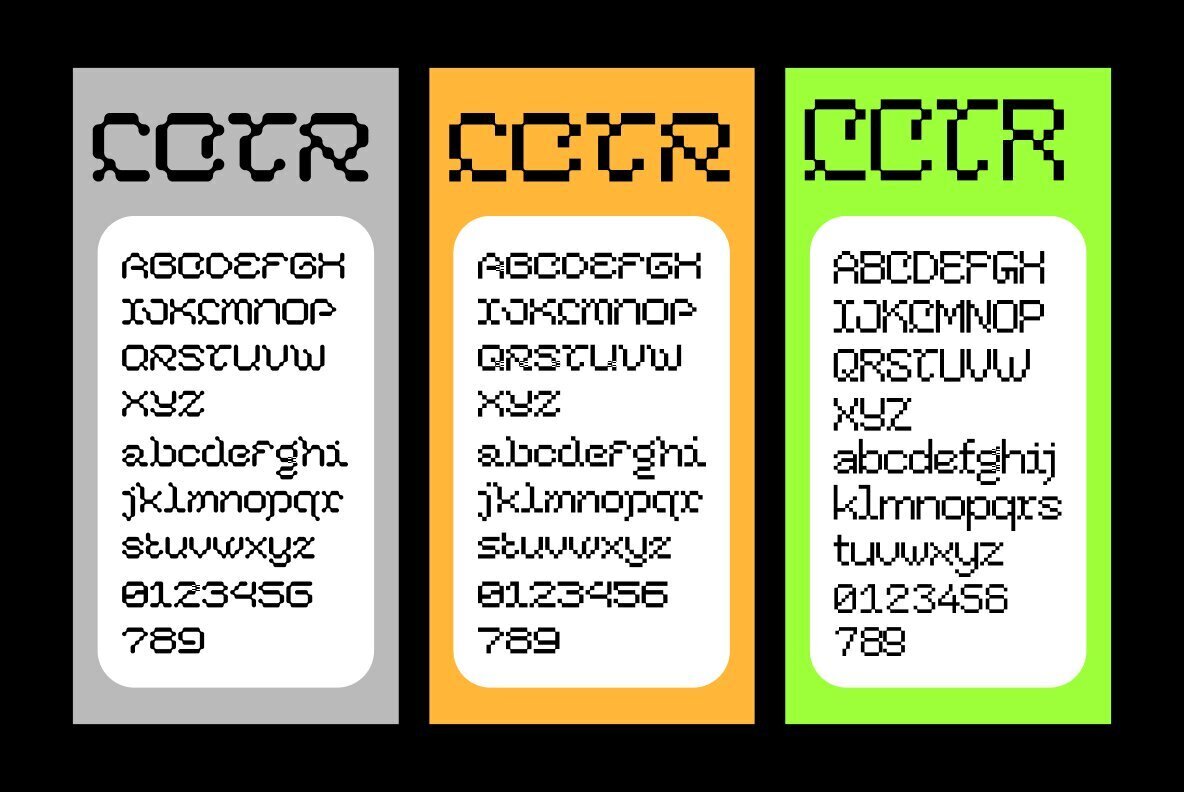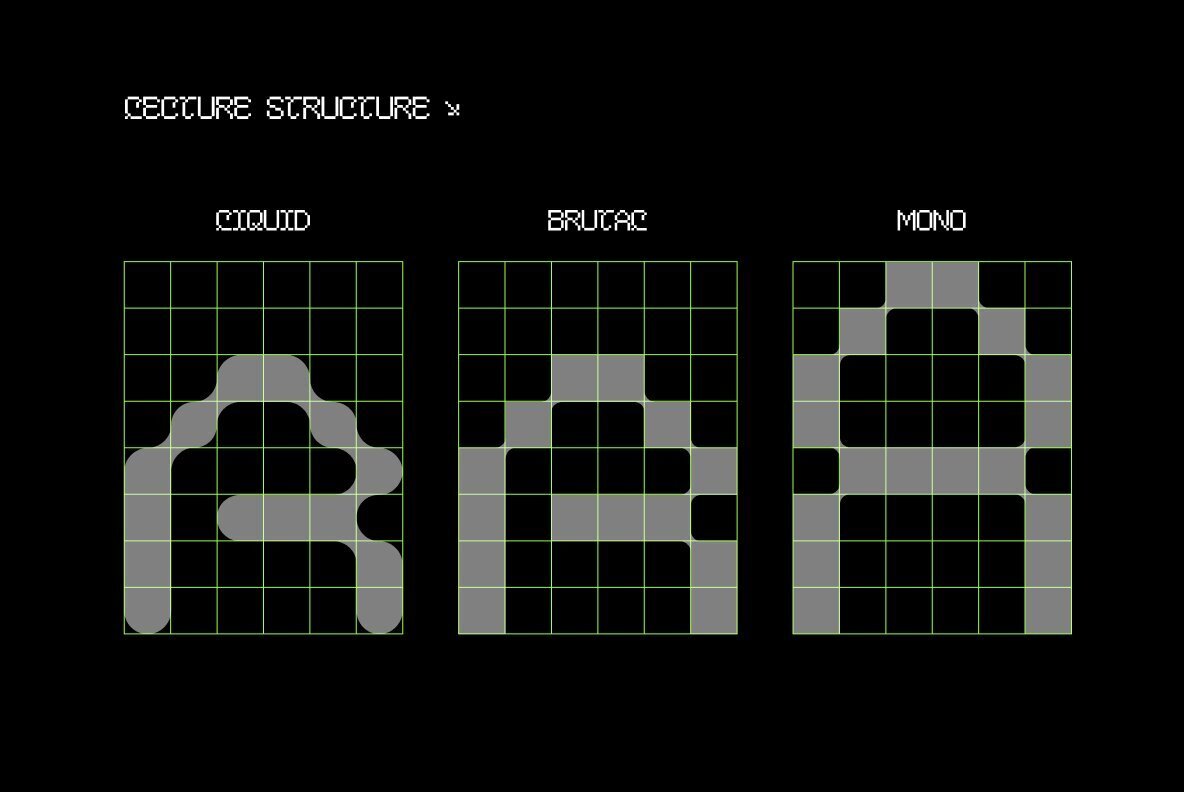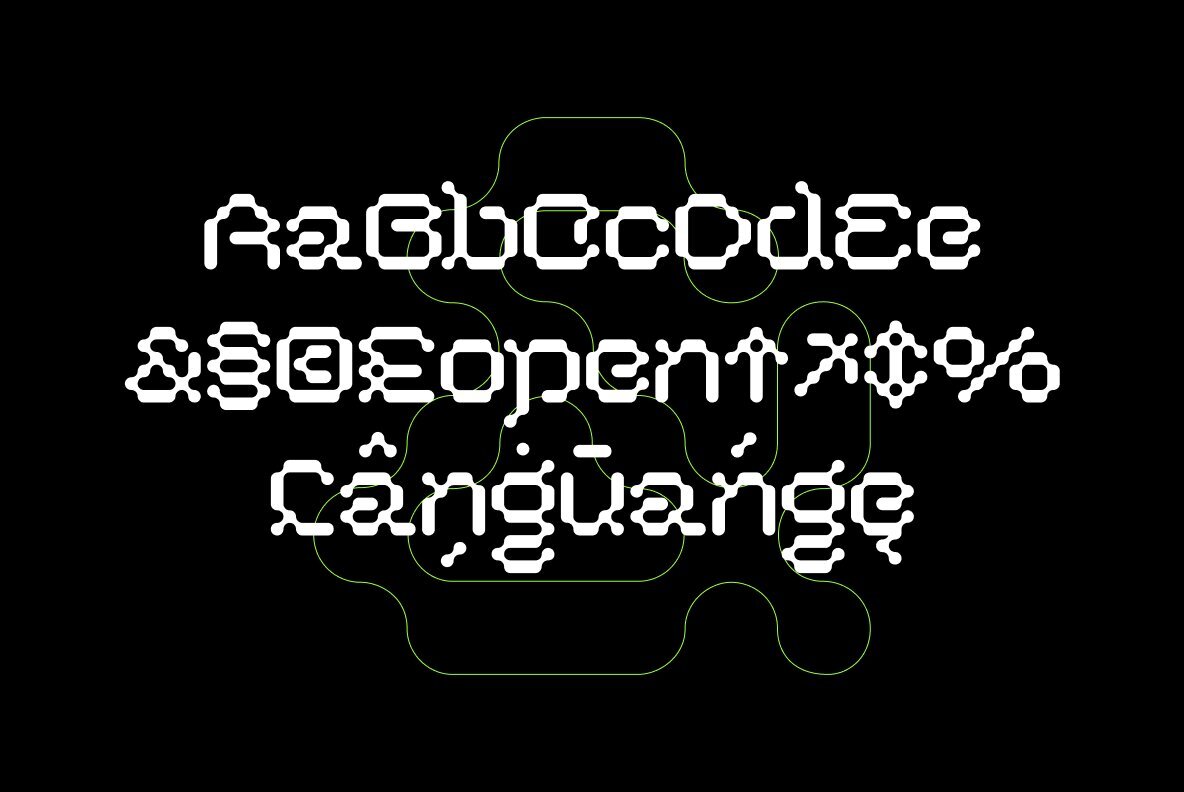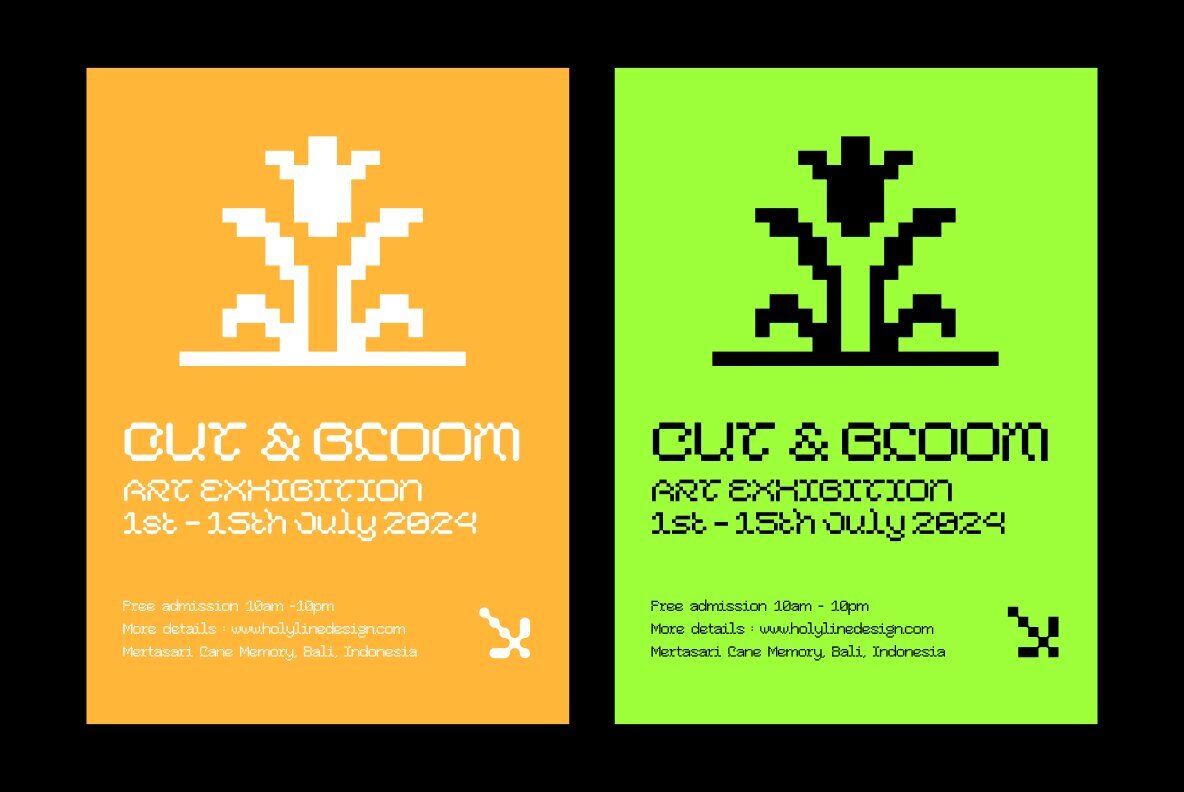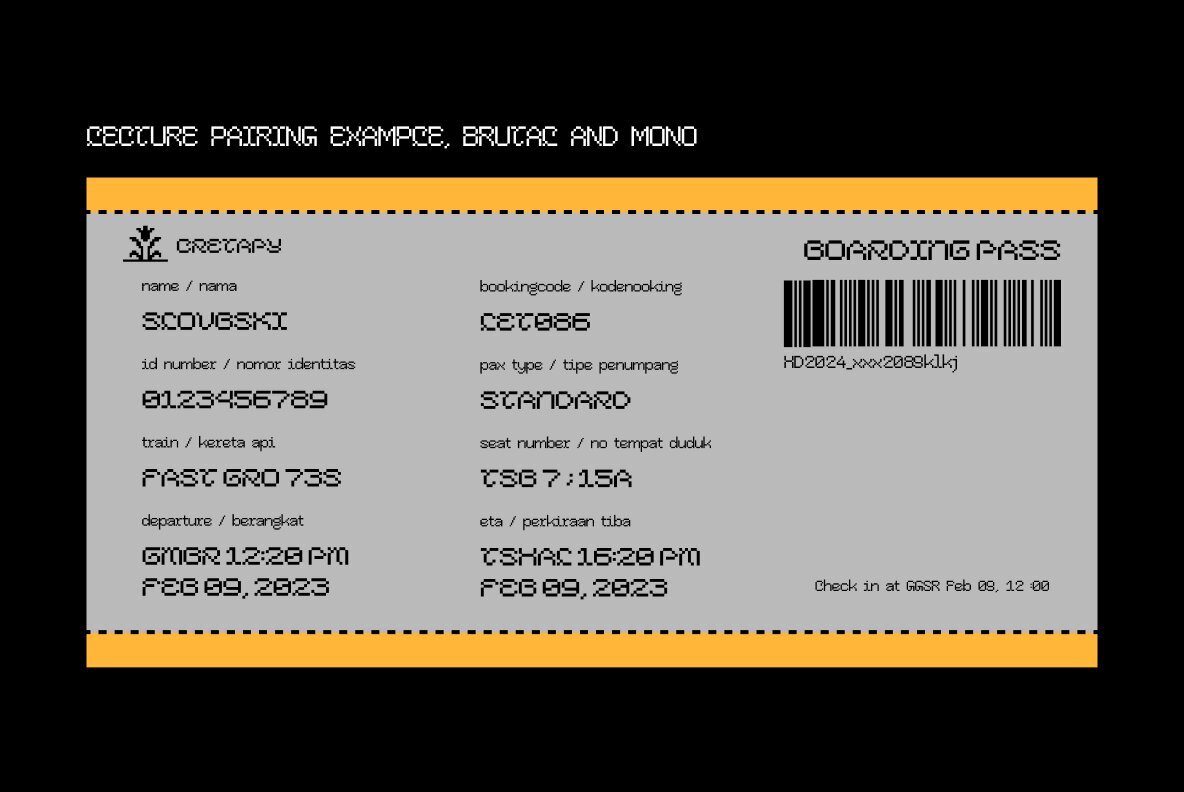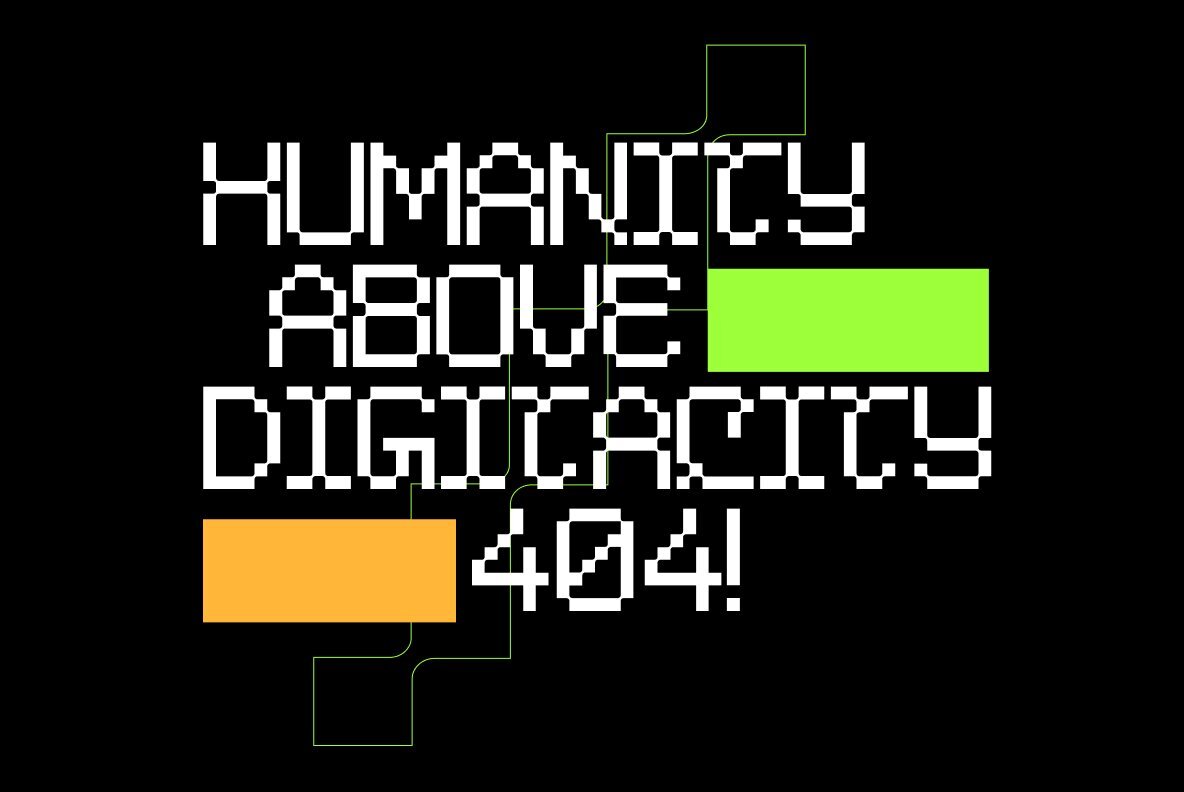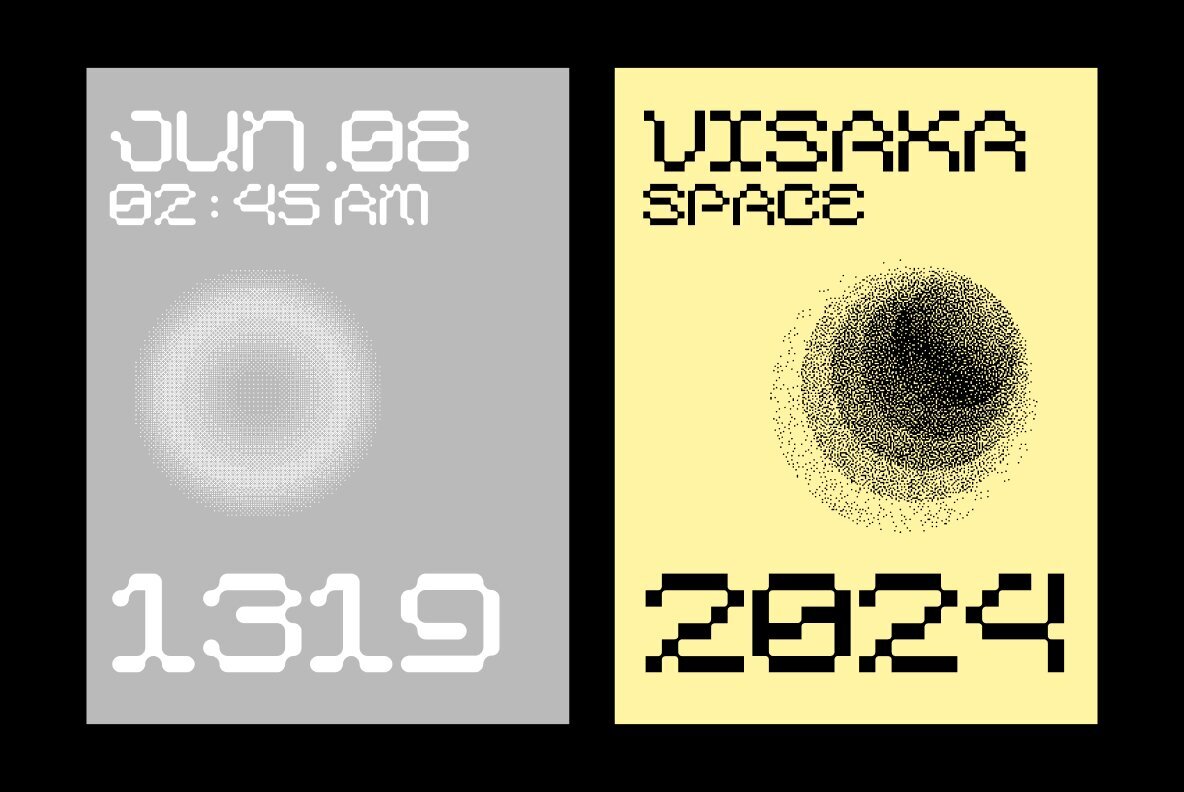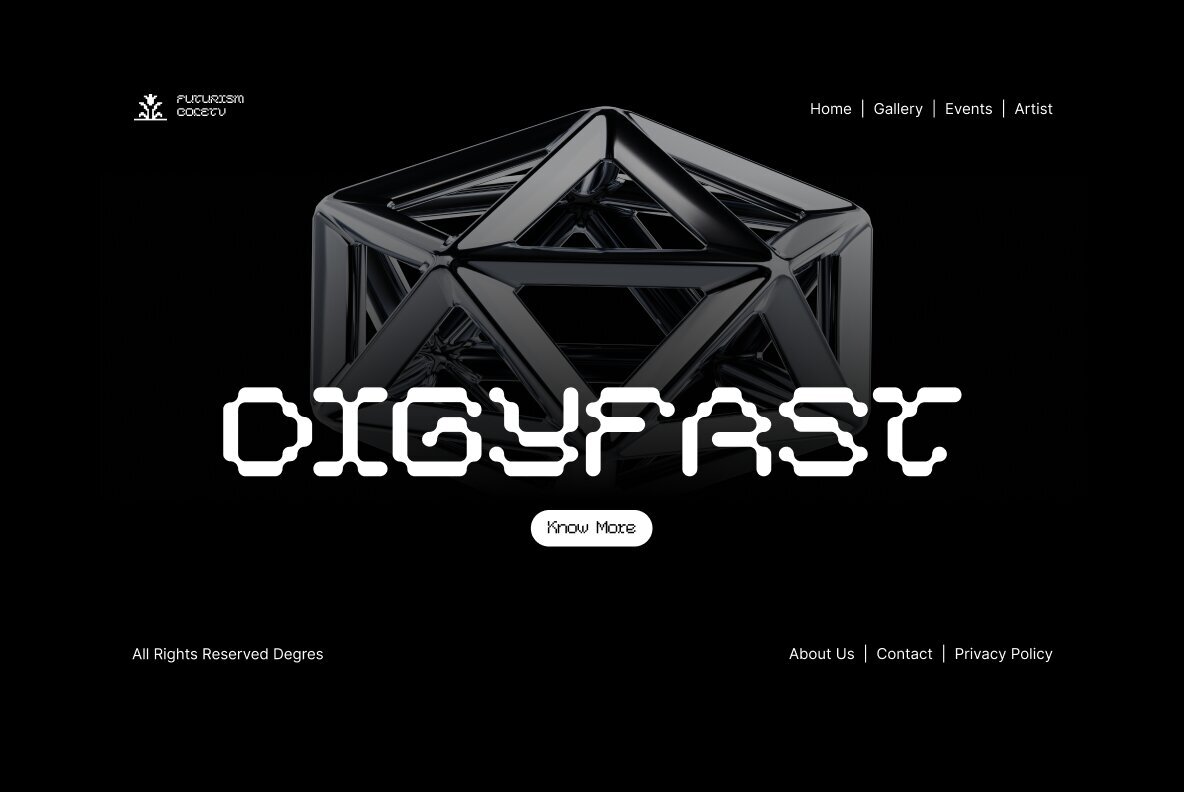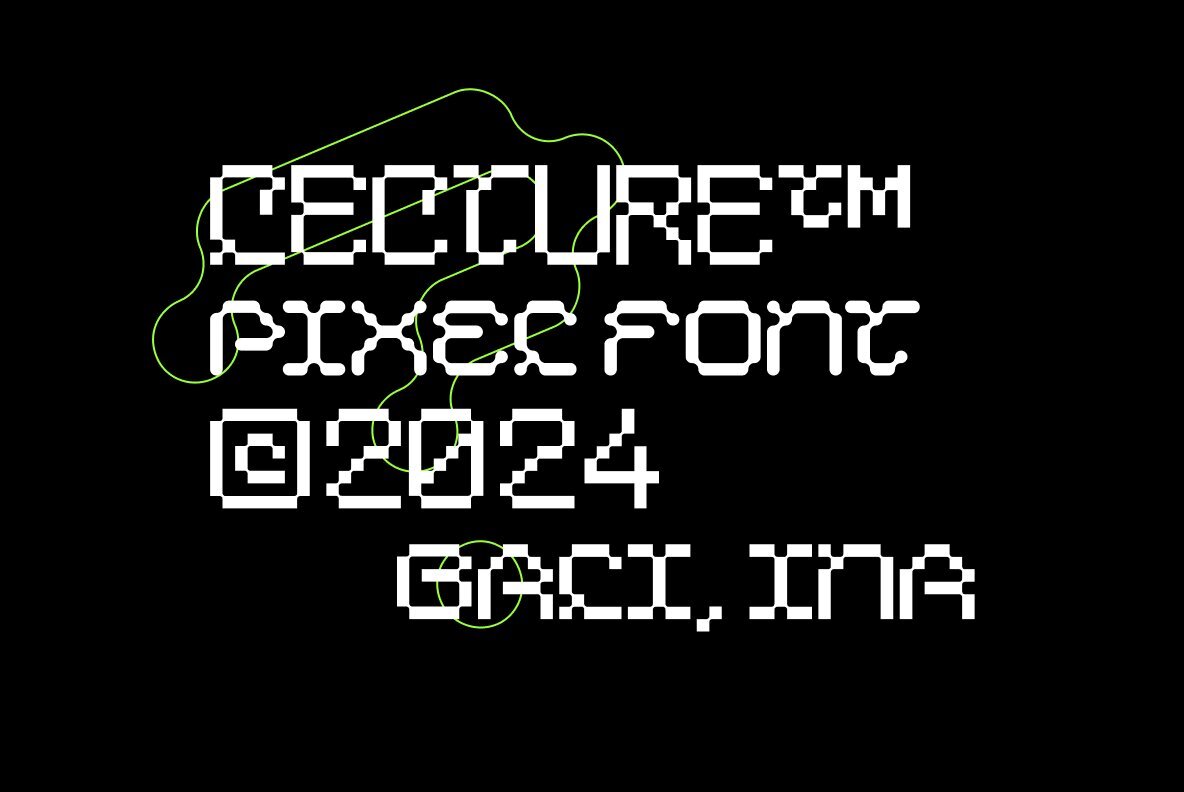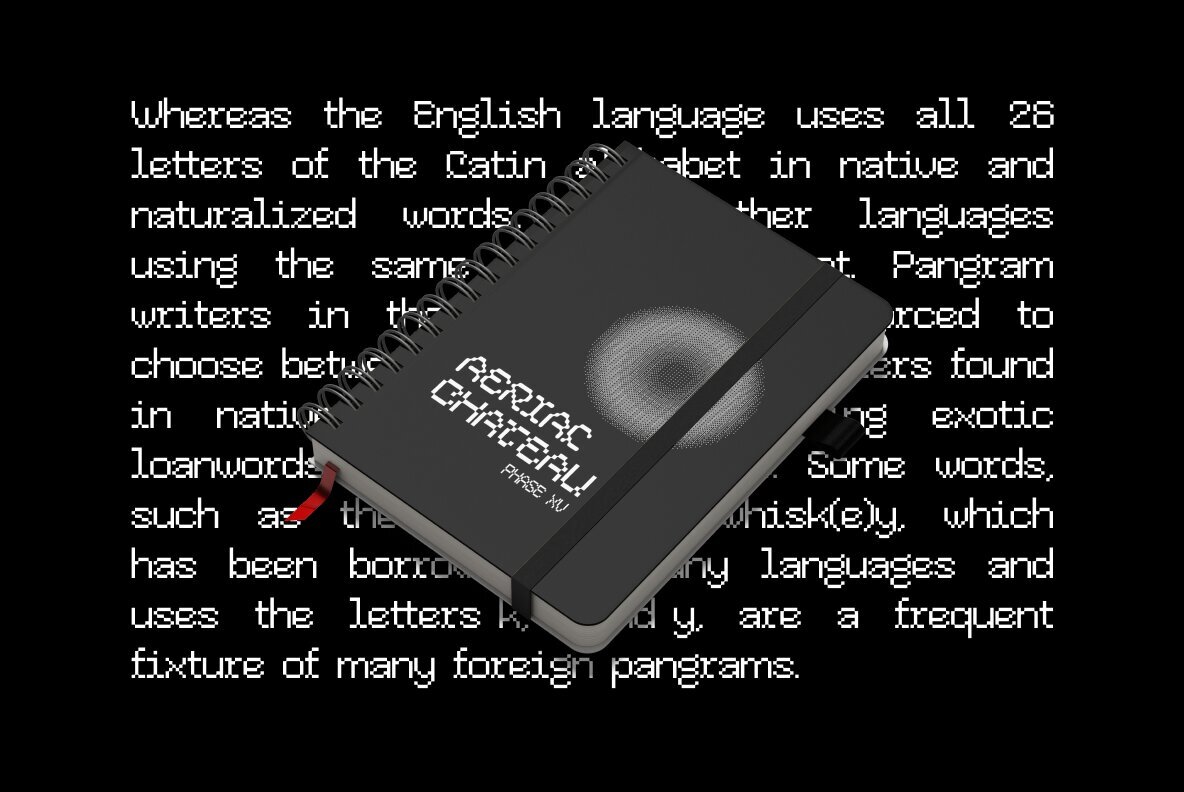
Lecture Font
Lecture is a pixel-style display font that captures the spirit of both retro arcade games and futuristic digital aesthetics. Its pixelated structure evokes the nostalgia of classic gaming while adding a modern, tech-inspired edge, making it a perfect choice for projects that balance the past with the future.
With three distinct styles Brutal, Liquid and Mono, Lecture allows for creative mix-and-match pairing, offering endless possibilities for unique and playful layouts. Ideal for display purposes, Lecture is well-suited for video game titles, posters, and any design that calls for a striking, pixel-perfect aesthetic.
Designed for versatility, Lecture bridges retro charm with a cutting-edge vibe, bringing character and creativity to any project.